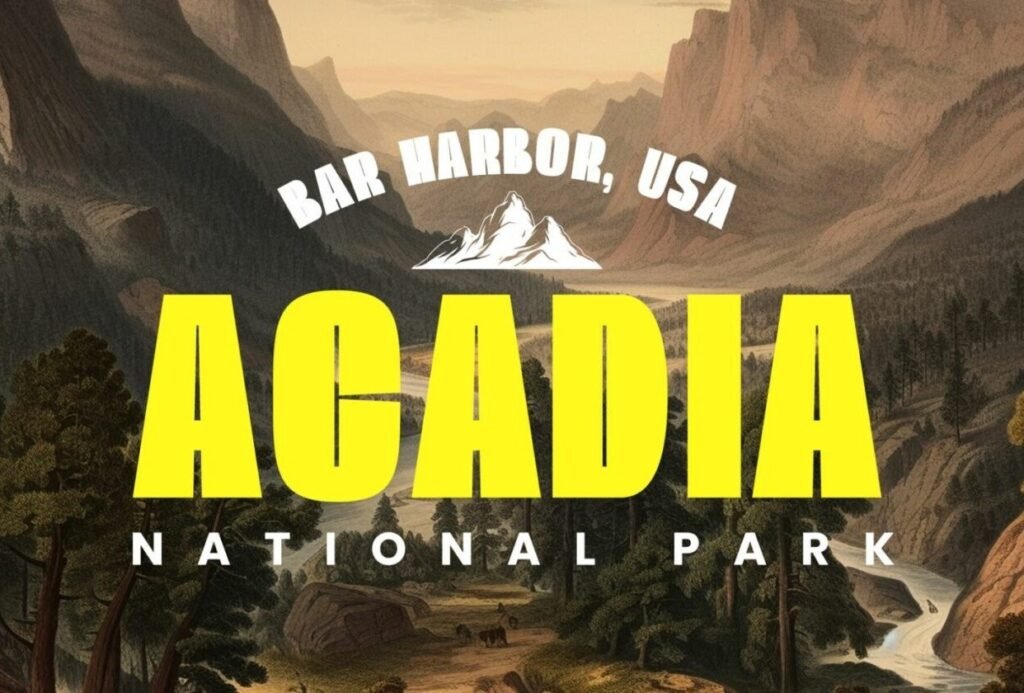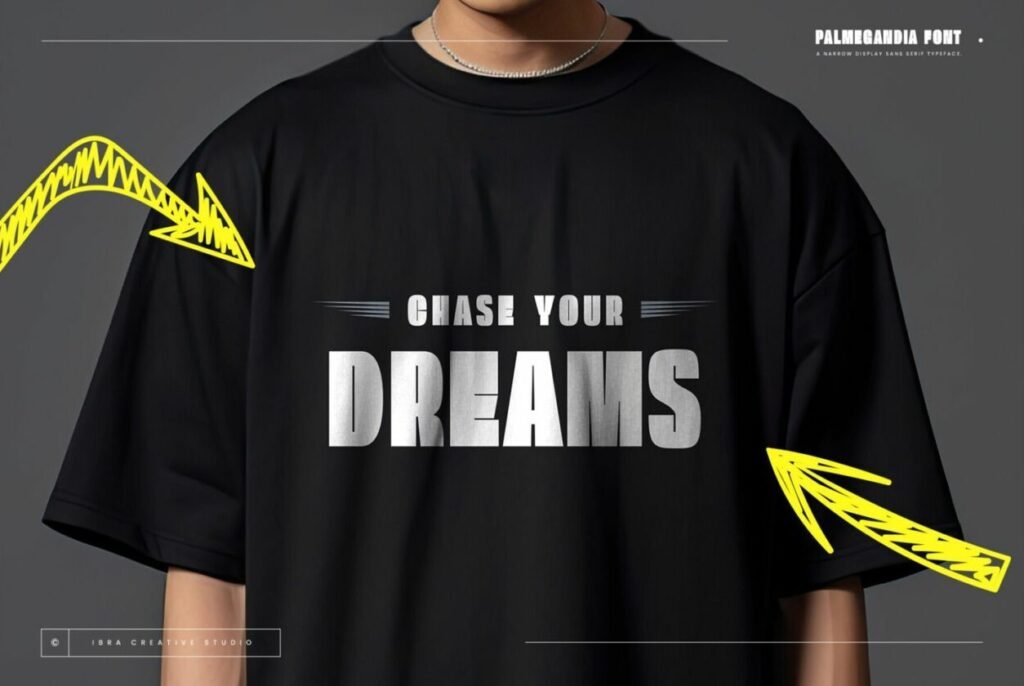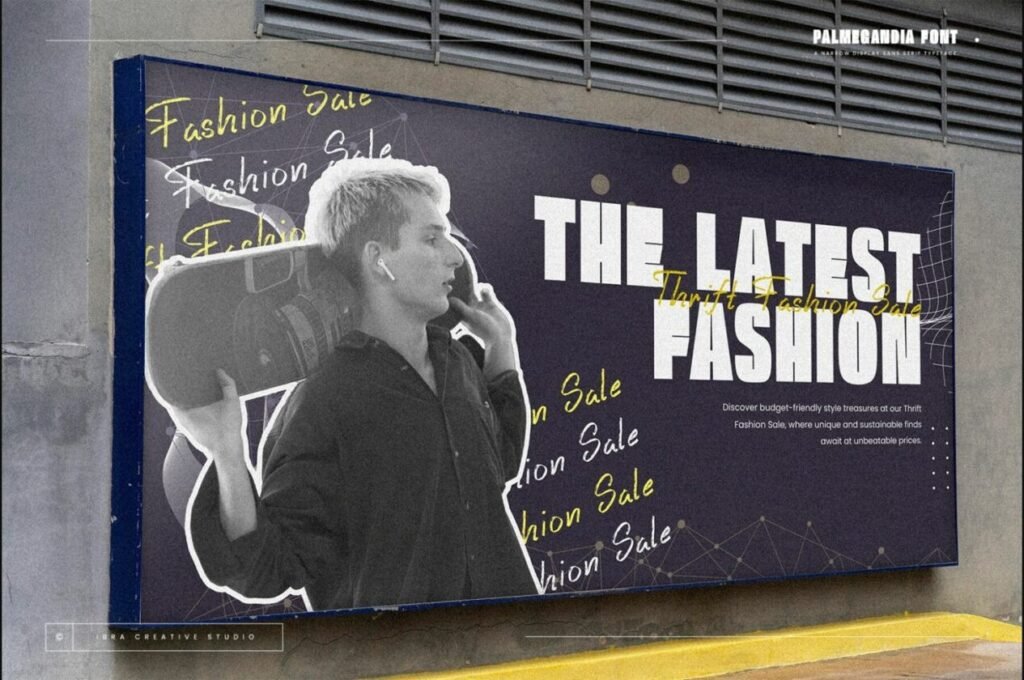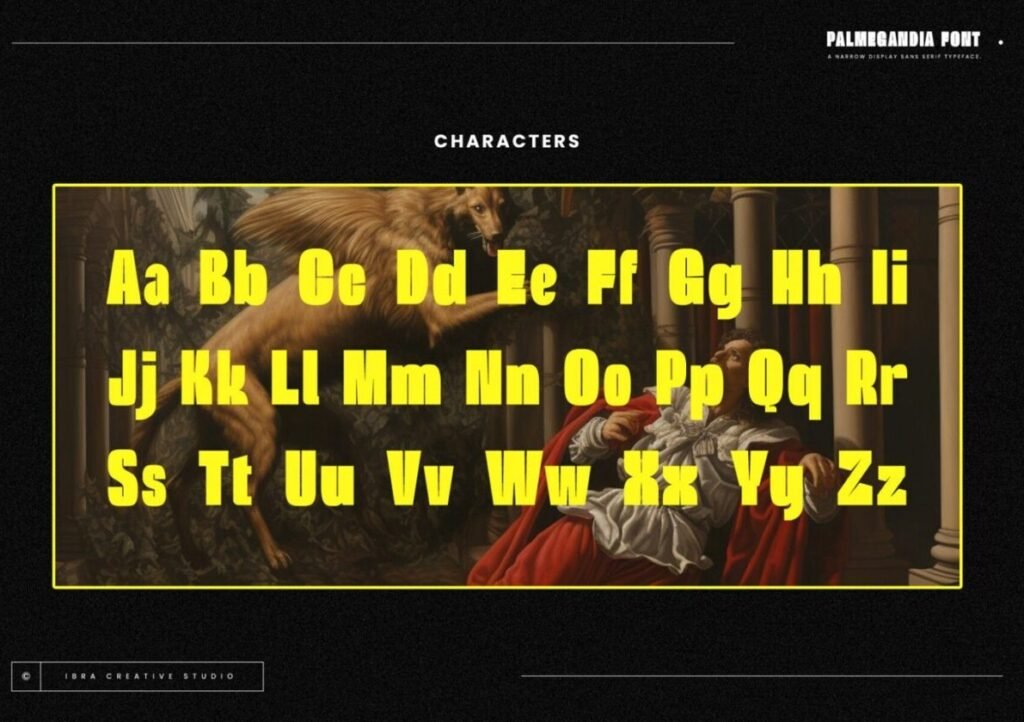
Palmegandia Font
Palmegandia is a stylish sans serif font designed to bring a modern and refined touch to your projects. With its clean, narrow letterforms, it balances elegance and simplicity in a way that makes it both versatile and visually striking. Whether you’re working on a website header, branding, or print design, this font offers a sleek appearance that stands out without being overwhelming.
The slender design of Palmegandia makes it perfect for spaces where every inch matters. It shines in tight layouts like headlines, banners, and logos, where its narrow form allows for clarity without sacrificing impact. Its contemporary style gives your text a polished and professional feel, making it a go-to choice for designers who want to make a bold impression with minimal space.
From modern branding to editorial layouts, Palmegandia adapts easily to various design needs. Its subtle sophistication and readability ensure that your message is delivered with clarity and style. If you’re seeking a font that is both functional and elegant, Palmegandia offers the perfect balance.